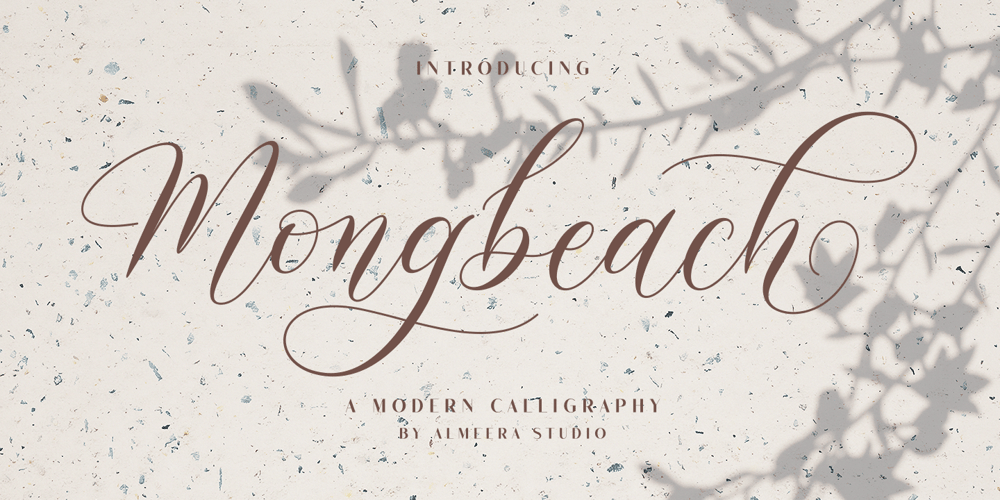
Mongbeach Script Font Family was designed by Rinto Dwi Nugroho and published by Almeera Studio. Mongbeach Script contains 1 styles and family package options. Introducing the elegant new Mongbeach Script. For those of you who are needing a touch of elegance and modernity for your designs, this font was created for you!Mongbeach was built with OpenType features and includes beginning and ending swashes, alternate swash characters for most lowercase letters, numbers, punctuation, alternates, ligatures and it also supports other languages :)Mongbeach is suitable for various products such as invitations, product packaging, quotes, product design, crafter, labels, photography, watermarks, logos & branding.Everything can be accessed using software that supports Opentype, such as Adobe Indesign, Adobe CS Illustrator, Adobe Photoshop CC, and Corel Draw.